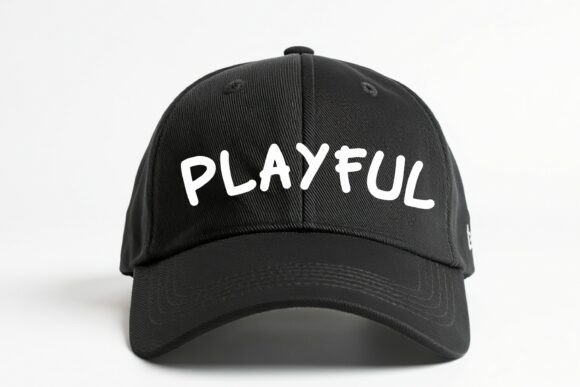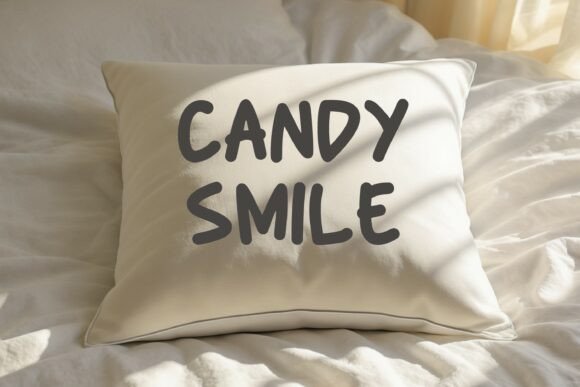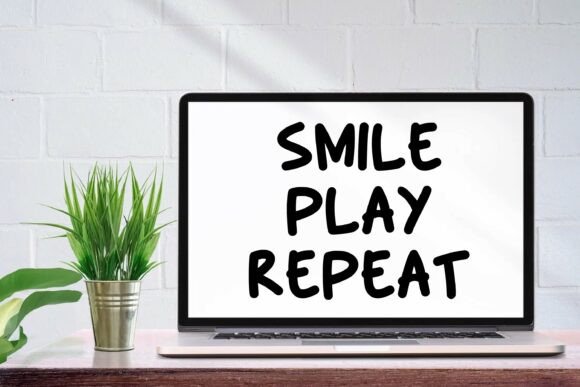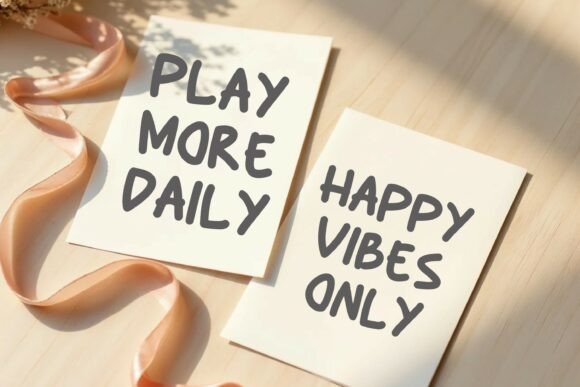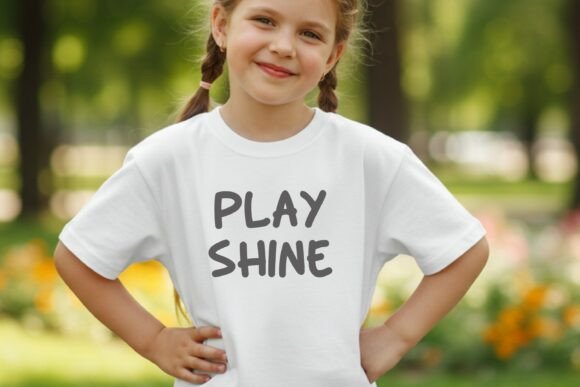
Introduction to Snappy Bounce Font Font
Fonts play a crucial role in design, and the Snappy Bounce Font font is a typeface that brings both character and versatility to any project. Whether you’re working on a branding project, a website, or a print design, the Snappy Bounce Font font offers a unique style that can elevate your work.
Snappy Bounce is a playful display font that brings joy and energy into your designs.
Featuring soft curves, bold strokes, and a lively handwritten feel, this font is perfect for projects that need a friendly and approachable touch Whether youβre creating kidsβ products, party invitations, logos, or eye-catching headlines, Snappy Bounce adds a fun and modern vibe.
Key Features of Snappy Bounce Font Font
Why Choose Snappy Bounce Font Font?
The Snappy Bounce Font font is more than just a typeface β it’s a design tool that helps you communicate your message with style and clarity. Its unique character set and versatile design make it suitable for a wide range of applications, from elegant invitations to bold headlines.
With its carefully crafted letterforms and balanced proportions, the Snappy Bounce Font font ensures readability and visual appeal across all mediums.
What makes Snappy Bounce Font font special?
The Snappy Bounce Font font stands out with its unique design, exceptional readability, and versatility across various design applications.